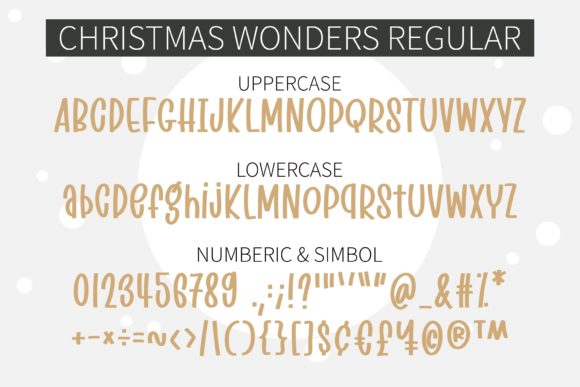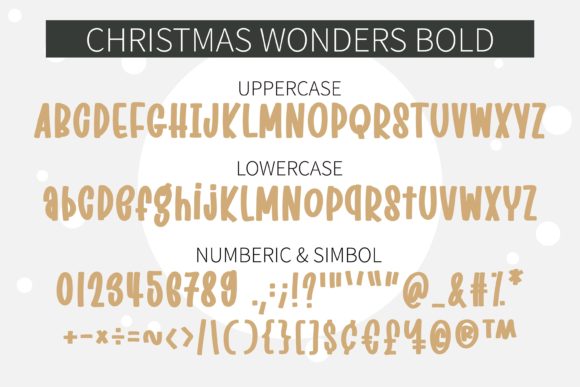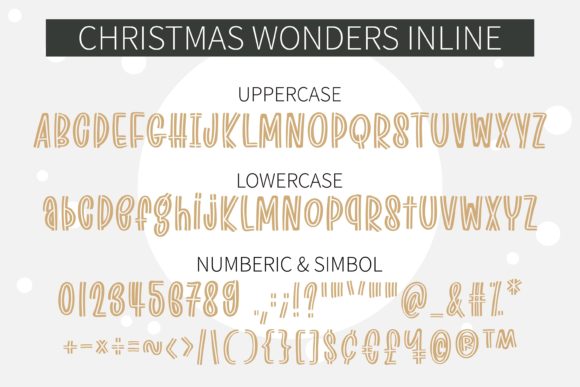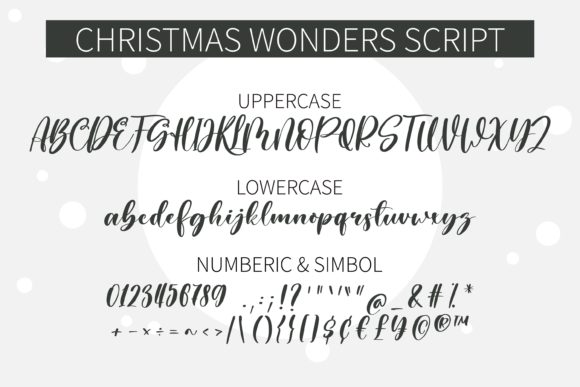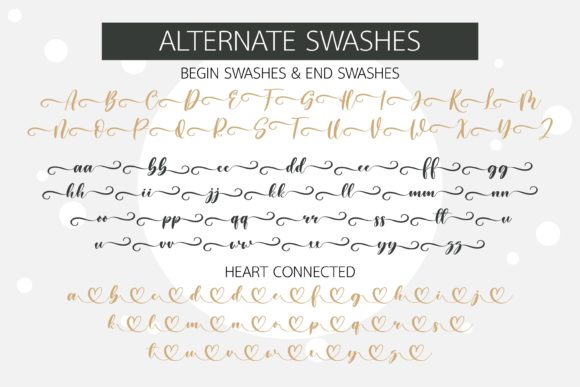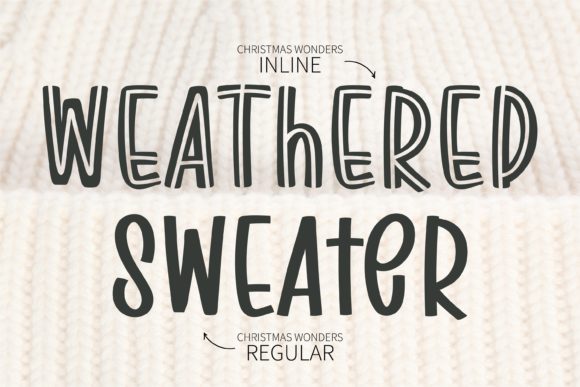
Introducing Christmas Wonders Font: A Festive Addition to Your Design Collection
As the holiday season approaches, designers and crafters are on the lookout for the perfect fonts to add a touch of magic to their projects. Look no further than Christmas Wonders Font, a delightful duo of fonts designed to bring a chic and cheery vibe to your crafts. In this article, we’ll dive into the features and benefits of Christmas Wonders Font, and explore how it can elevate your holiday designs.
A Perfect Pair: Christmas Wonders Font Duo
Christmas Wonders Font consists of two carefully crafted fonts that are designed to complement each other perfectly. Whether used together or apart, these fonts are ideal for adding a festive touch to your projects. The duo includes a elegant, cursive font and a bold, sans-serif font, providing a versatile combination that can be used for a wide range of applications.
One of the standout features of Christmas Wonders Font is its PUA (Private Use Area) encoding. This means that you can access all glyphs and swashes with ease, giving you maximum creative control over your designs. With PUA encoding, you can effortlessly insert special characters, ornaments, and flourishes to add a personal touch to your projects.
Christmas Wonders Font is a dream come true for designers and crafters who want to create stunning holiday-themed projects. Whether you’re working on:
- Festive posters and flyers
- Christmas-themed crafts, such as scrapbooking and DIY decorations
Christmas Wonders Font is the perfect addition to your design toolkit. Its versatility and charm make it an excellent choice for a wide range of applications.
Tips for Using Christmas Wonders Font
To get the most out of Christmas Wonders Font, here are a few tips:
- Mix and match the two fonts to create a unique and eye-catching combination.
- Use the bold, sans-serif font for headings and titles, and the cursive font for body text or decorative elements.
- Don’t be afraid to get creative with glyphs and swashes – they’re a great way to add a personal touch to your projects!
Christmas Wonders Font is a delightful addition to any design collection. Its perfect pairing of fonts, PUA encoding, and versatility make it an ideal choice for designers and crafters looking to add a touch of festive magic to their projects. Whether you’re working on holiday cards, posters, or crafts, Christmas Wonders Font is sure to bring a smile to your face and a touch of cheer to your designs.